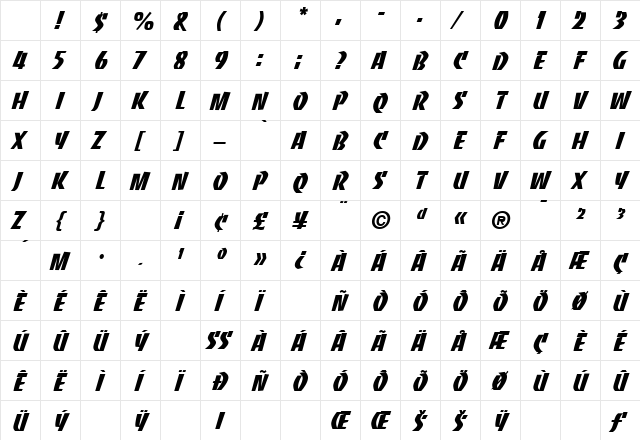
Exciter is a composed and adaptable typeface that performs quietly and consistently across a wide range of design contexts. The slanted form adds forward momentum and visual energy.
Pro Tip: Use Exciter for emphasis, pull quotes, and subheadings where its slanted energy can add rhythm to the layout.